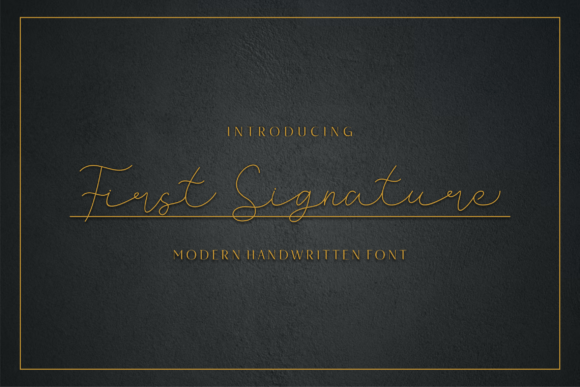
First Signature: Elevating Editorial Design with a Handwritten Touch
As a content creator who regularly designs newsletters, blog headers, and digital publications, I’m always on the lookout for fonts that combine elegance with practicality. First Signature stands out as a versatile handwritten font that brings a personal, flowing aesthetic to editorial layouts without sacrificing readability. Its delicate strokes and balanced proportions make it ideal for content creators aiming to add a touch of sophistication to their visual storytelling.
First Signature is a script font that mimics the natural flow of handwriting, with soft curves and subtle variations in stroke weight. Unlike overly ornate script fonts, it maintains a clean and modern appearance, making it suitable for both digital and print media. The font’s elegant structure allows it to work well in a variety of design contexts—from lifestyle blog headers to wedding guides—without overpowering the message.
Enhancing Visual Hierarchy and Reader Engagement
In editorial design, establishing a clear visual hierarchy is essential for guiding readers through content. First Signature excels as a display font for titles, pull quotes, and section headings. Its flowing script draws attention naturally, making it a strong choice for cover text, chapter openers, and featured quotes in digital magazines or ebooks.
For example, using First Signature in a lifestyle blog’s main header instantly adds a sense of warmth and personality. Pairing it with a clean sans serif font like Helvetica or a classic serif like Georgia for body text creates a balanced contrast that enhances readability while maintaining a cohesive design language.
Practical Applications Across Content Formats
Whether you're designing a recipe ebook, coaching workbook, or printable planner, First Signature’s fluid style adapts beautifully to different formats. Its legibility at medium to large sizes makes it particularly effective in quote graphics and lead magnets, where visual appeal and clarity are key.
- Blog headers: Use First Signature for a stylish blog title or featured quote to enhance visual appeal.
- Magazine covers: Apply it to cover lines or editorial illustrations to create a refined, editorial tone.
- Email newsletters: Incorporate the font in newsletter banners or featured article titles for a polished look.
- Digital guides: Employ it for chapter titles or key takeaways in downloadable guides and workbooks.
Because of its natural flow and soft character shapes, First Signature works especially well in wedding-related content, wellness blogs, and creative lifestyle brands where a warm, approachable tone is desired.
Readability Across Devices and Formats
When designing for digital audiences, it’s important to consider how a font performs across screens, PDFs, and mobile layouts. First Signature holds up well in screen-based formats when used at appropriate sizes. For best results, it should be reserved for short-form text such as headlines, captions, and accent typography rather than long blocks of body copy.
For print materials like printable planners or branded workbooks, the font’s crisp outlines and smooth curves ensure a professional finish. Designers should be mindful of font size and spacing to maintain legibility, especially in smaller print formats like mobile worksheets or downloadable guides.
Font Pairing Strategies for Editorial Design
One of the strengths of First Signature is its ability to complement a wide range of typefaces in editorial layouts. It pairs particularly well with readable serif fonts for body text, such as Merriweather or Playfair Display, creating a classic, elegant contrast. For more modern layouts, pairing it with a clean sans serif like Lato or Open Sans adds a contemporary edge while maintaining visual harmony.
Consider using First Signature for editorial accents such as bylines, pull quotes, or sidebar headers, while relying on a more neutral font for the main body. This approach ensures that the font enhances the design without compromising readability or structure.
Design Features and Language Support
First Signature includes a range of stylistic alternates and ligatures that allow for customization in design projects. These features are especially useful for logo design, packaging design, or social media graphics where a unique typographic look is desired.
The font also supports multiple languages, making it a solid choice for international content creators. Whether designing a multilingual newsletter or a global brand identity, First Signature offers the flexibility needed to maintain a consistent visual tone across different markets.
Conclusion
Incorporating First Signature into your editorial toolkit can elevate your content’s visual appeal while maintaining a strong focus on readability and brand identity. Whether you're designing a digital magazine, crafting a newsletter layout, or preparing a downloadable guide, this script font offers a refined, flowing aesthetic that supports a wide range of creative projects.